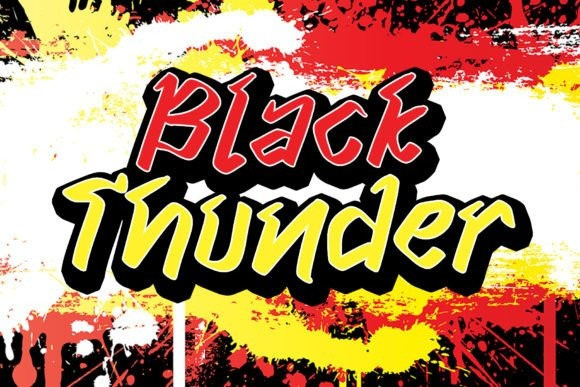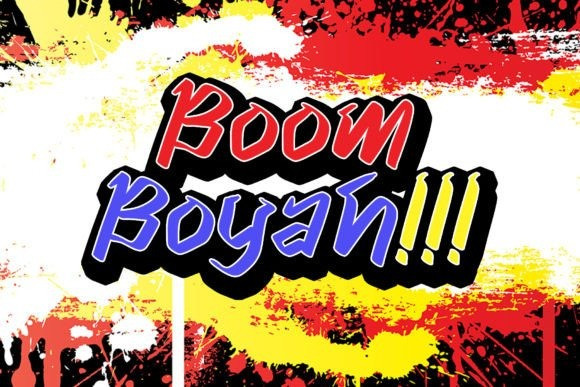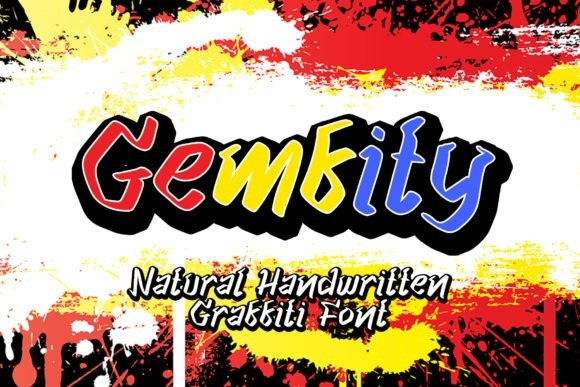
Gemfity Font
Gemfity Font is a fun and quirky graffiti-style font. It will elevate a wide range of design projects be it branding, headings, wedding designs, invitations, signatures, logotypes, wall art illustration, apparel, labels, and much more!